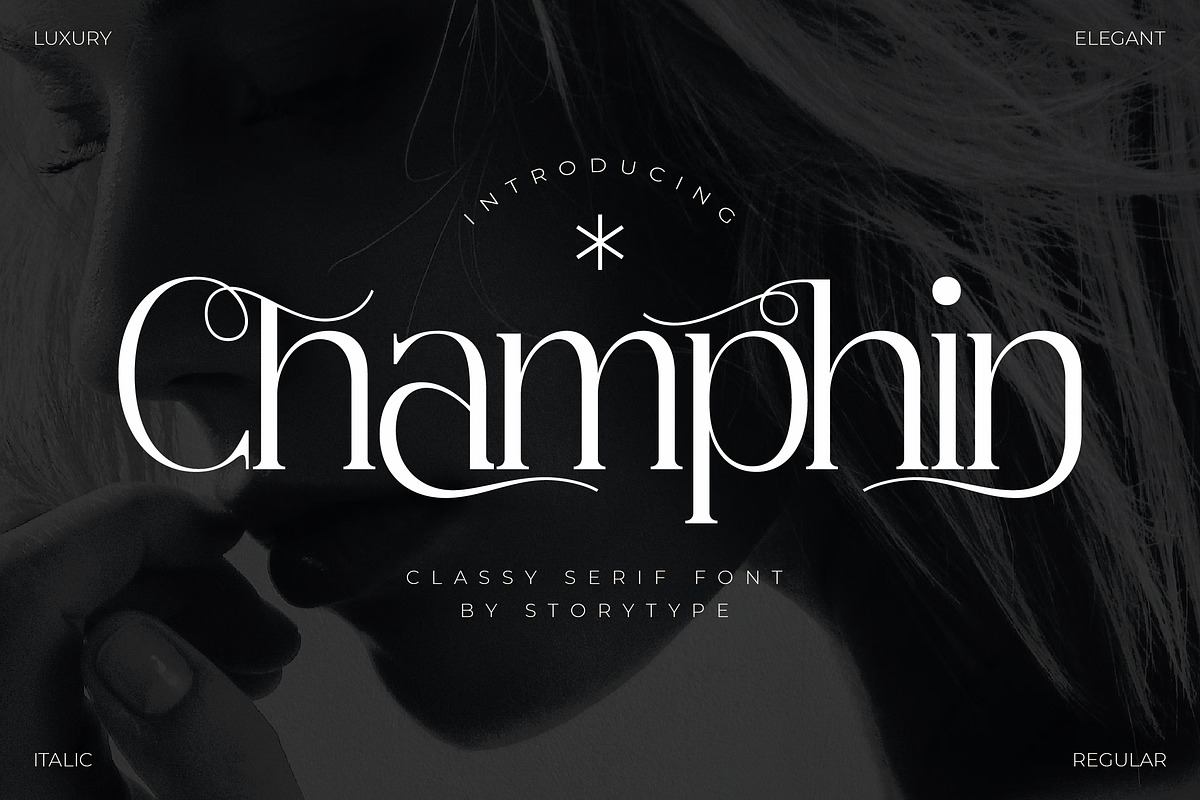
Elevate your designs with the refined elegance of Champhin Classy Serif Font Free Download. This sophisticated serif typeface combines classic letterforms with a modern twist, making it perfect for high-end branding, editorial design, luxury packaging, logos, and upscale websites.
Champhin features clean, well-balanced serifs and high contrast strokes, offering a timeless and polished look that works beautifully in both print and digital formats. It includes uppercase and lowercase letters, numerals, punctuation, and multilingual support—ideal for testing luxurious, professional layouts.